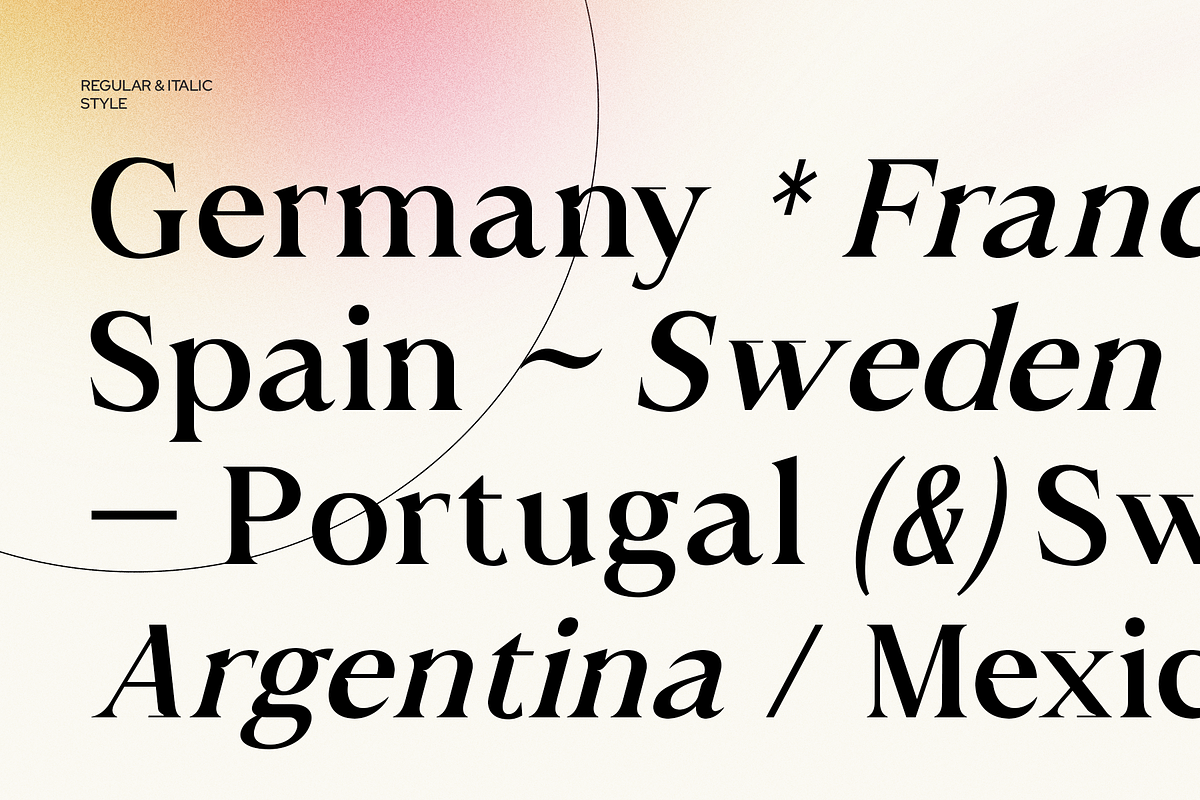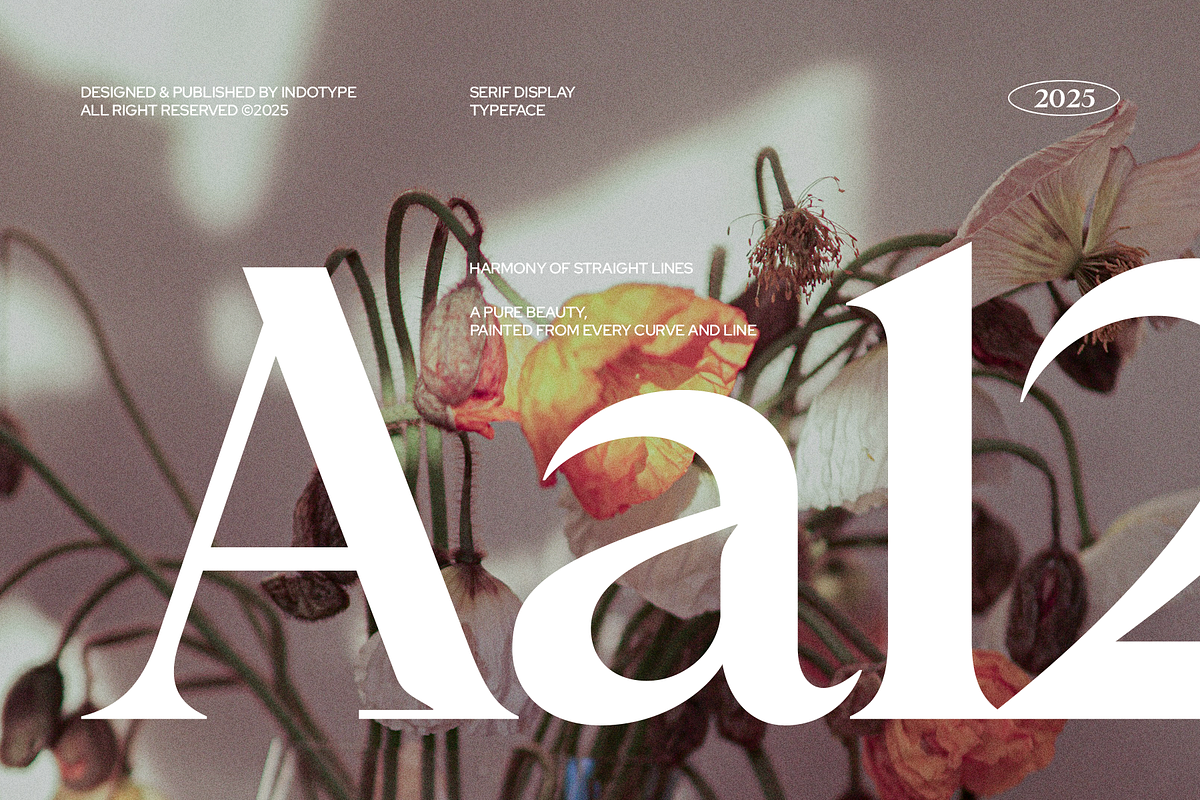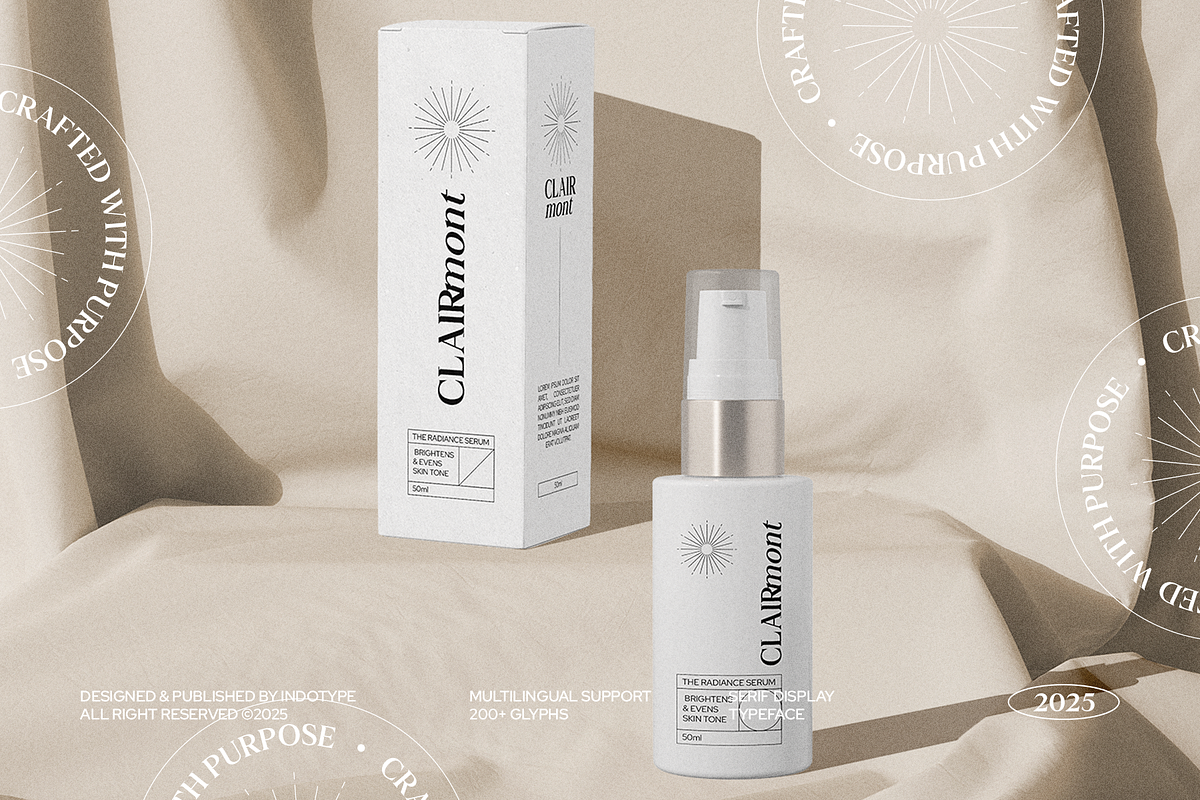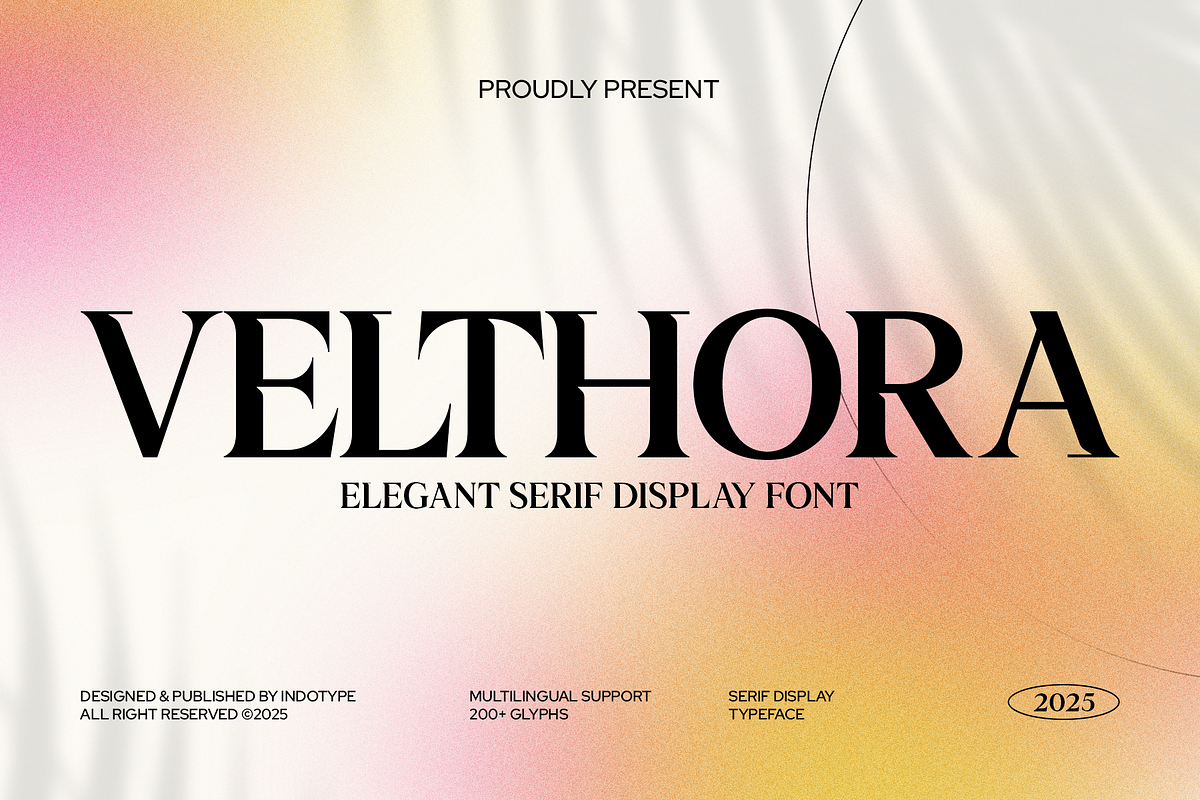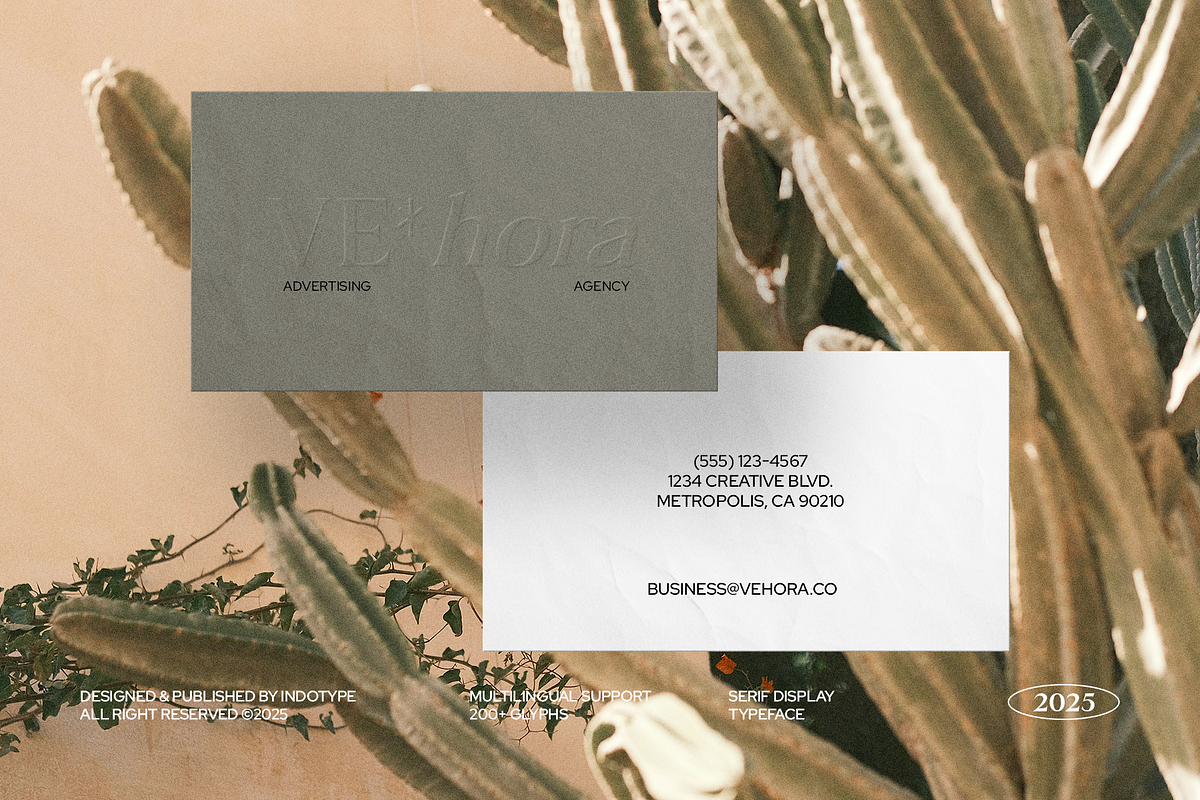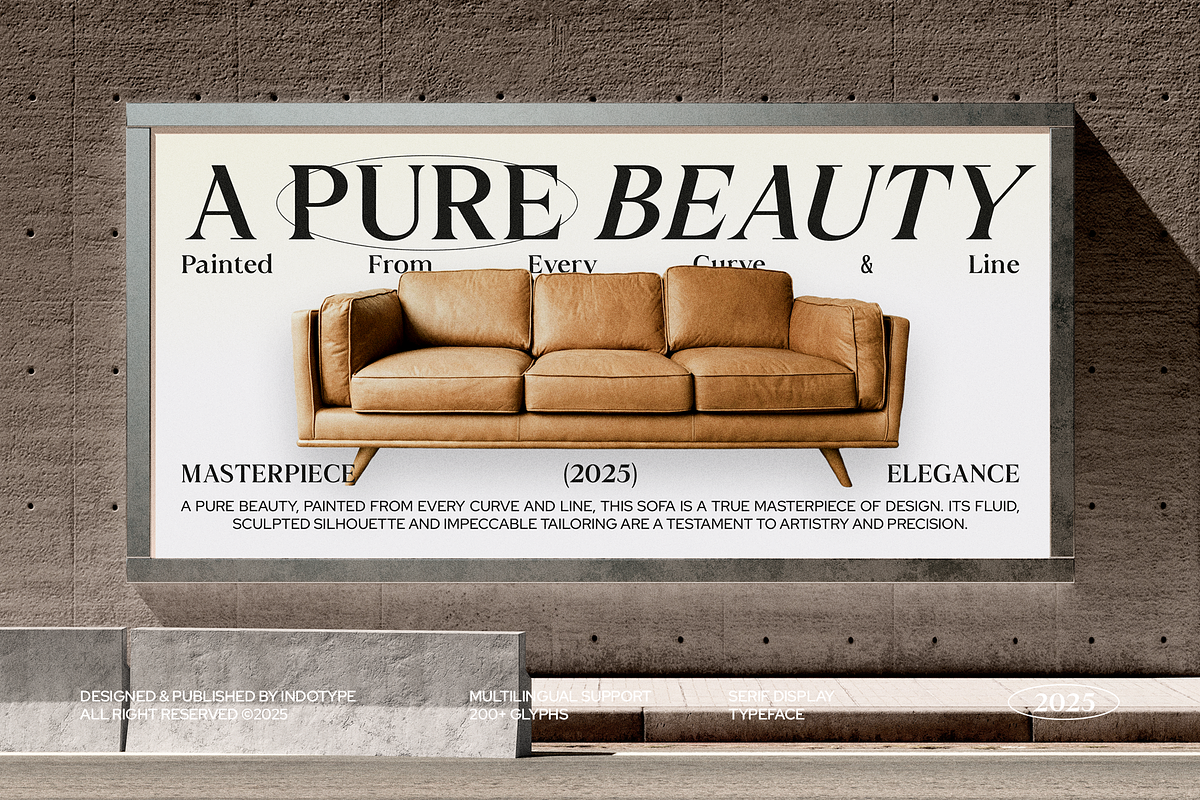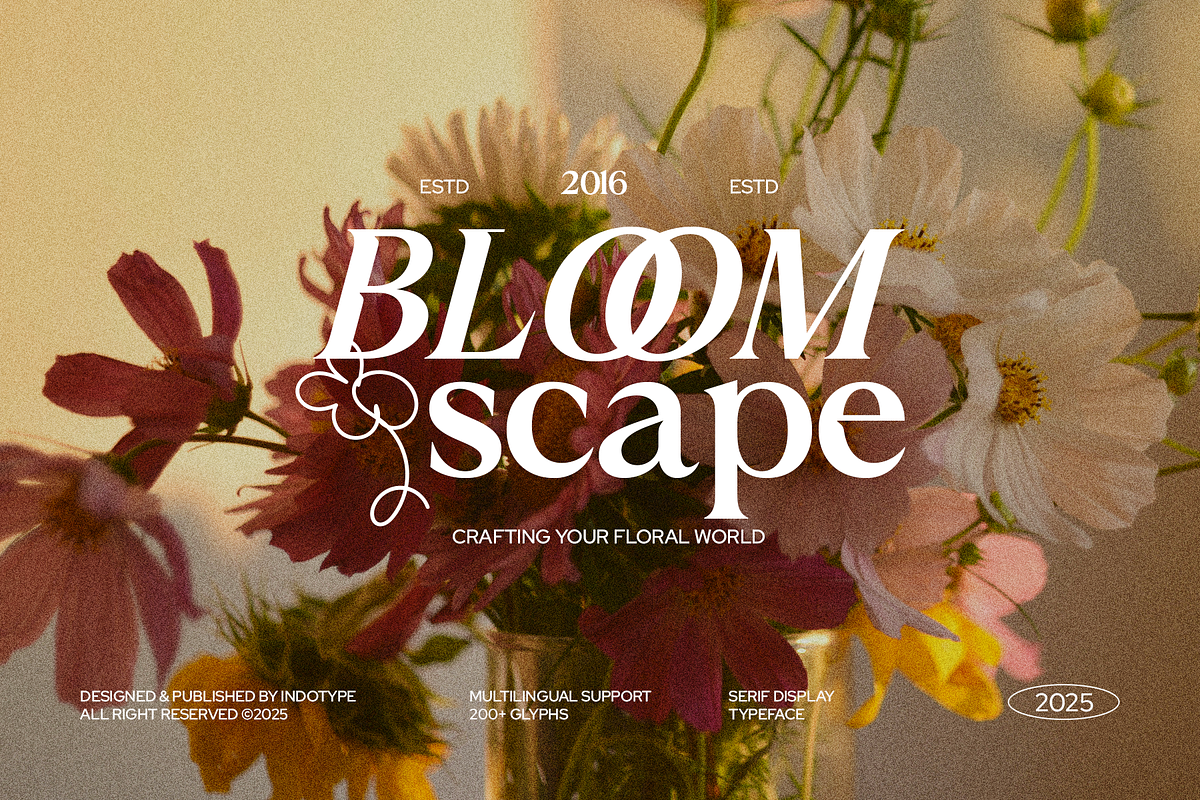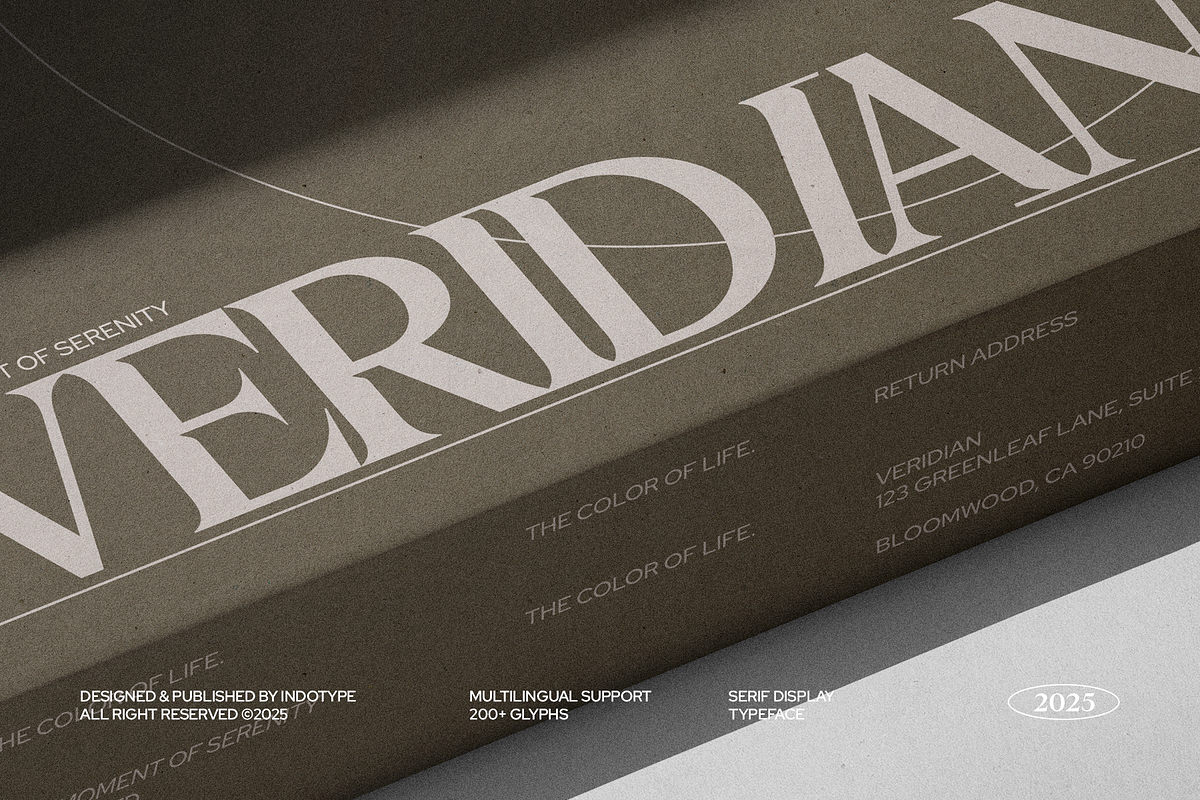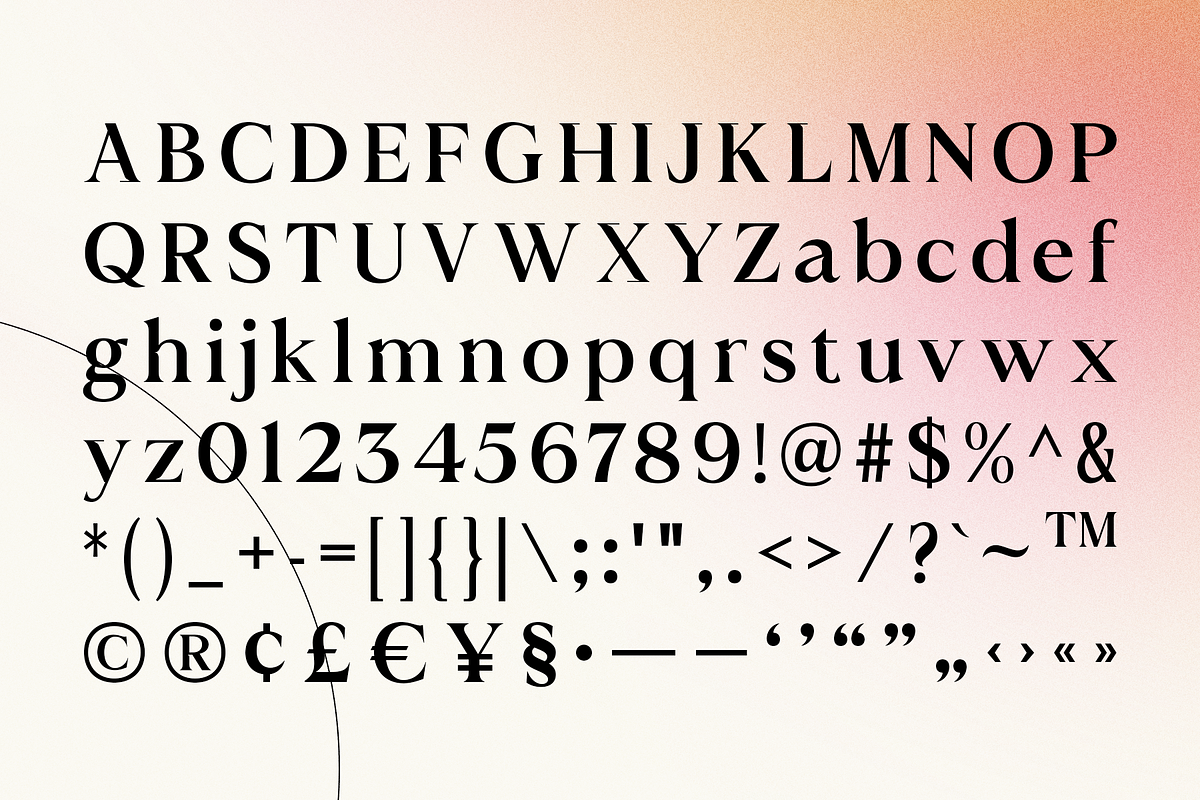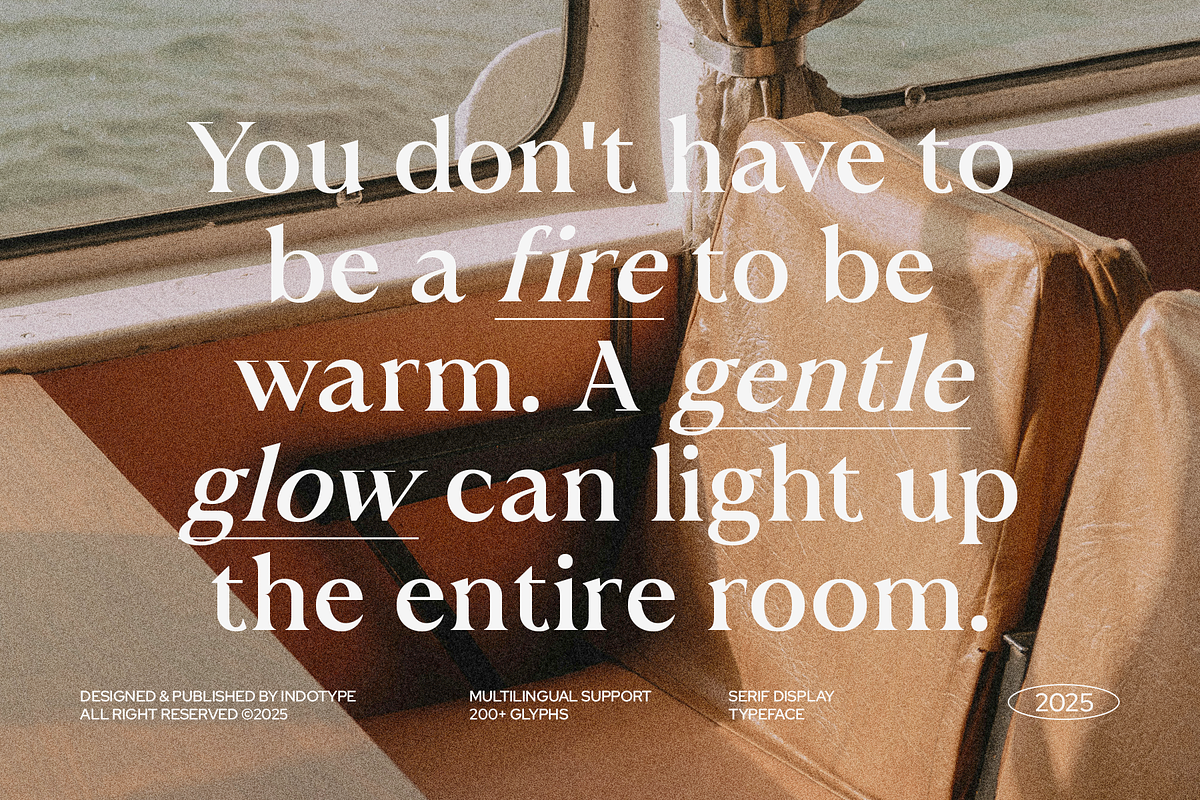
Velthora - Elegant Serif Display
Velthora is an elegant serif display font that blends timeless sophistication with a modern artistic edge. Its bold, high-contrast strokes and graceful curves create a sense of refinement, while its sharp serifs and balanced proportions ensure strong readability in display settings. With 200+ glyphs and multilingual support, Velthora offers versatility for global use. This typeface is ideal for projects that demand a luxurious, polished look — from branding and editorial layouts to packaging, invitations, fashion, and high-end digital graphics. Designed and published by Indotype, Velthora isn’t just a font — it’s a statement of class and refinement, made to elevate every design with a touch of elegance.